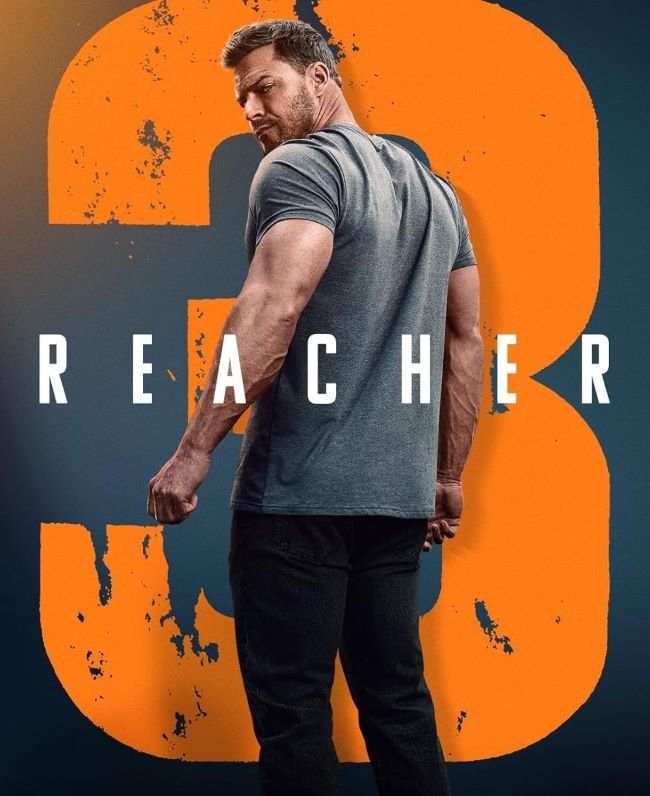
Reacher Font is a bold solid sans-serif font with clean, commanding authority that matches the Prime Video action series premiering in 2022, based on Lee Child’s Jack Reacher novels following a former military police investigator — massive, self-sufficient, perpetually travelling with nothing but the clothes on his back — who keeps stumbling into injustice and methodically dismantling it.
The typeface’s unadorned strength communicates the character’s defining quality: Reacher doesn’t perform toughness, he simply is it, and the font’s no-nonsense directness reflects exactly that absence of pretension.